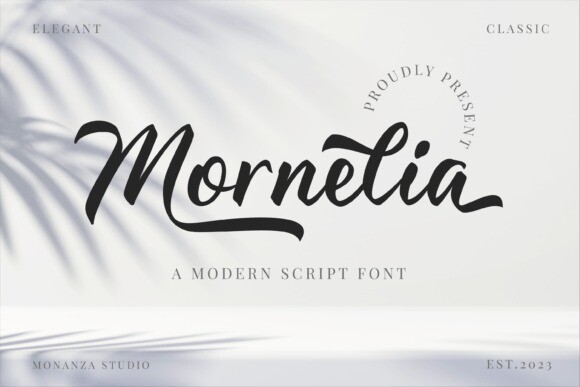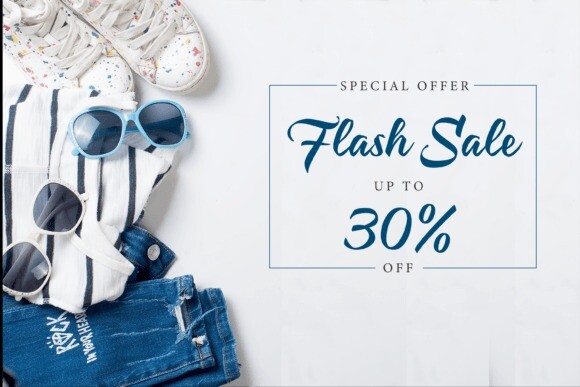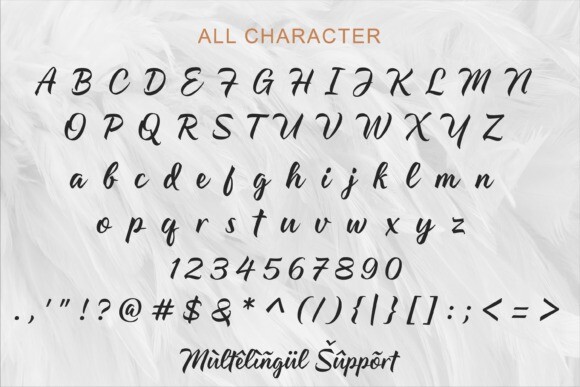
Mornelia Font
Mornelia Font a Modern Script font is script font types that are made beautifully and elegantly. Suitable for writing needs such as cards, invitations, and various other products.